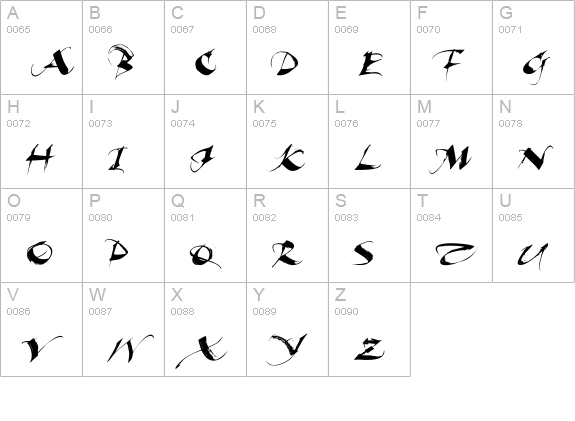
Introducing Beautiful Ink font, a stunning and elegant typeface designed to add a touch of sophistication to your design projects. This unique font features exquisite details and intricate strokes that emulate the beauty of hand-drawn calligraphy. Perfect for creating luxurious wedding invitations, upscale branding materials, or artistic posters, Beautiful Ink font will surely make your text stand out. The best part? Beautiful Ink font is completely free to download at FontsMarket.com. This means you can access this exquisite font without any cost, allowing you to elevate your designs without breaking the bank. Don't miss out on the opportunity to enhance your projects with the timeless charm of Beautiful Ink font. Download it today and let your creativity flourish!